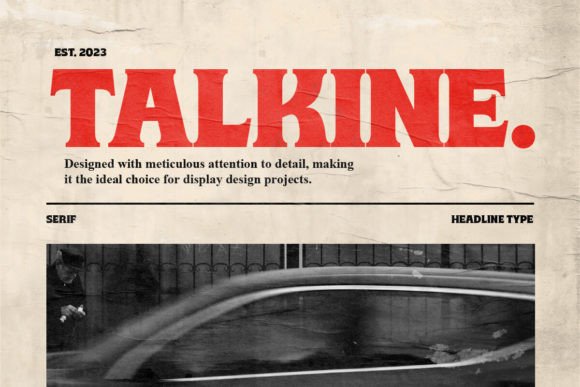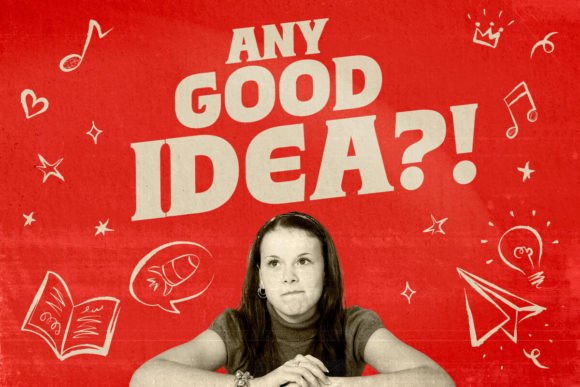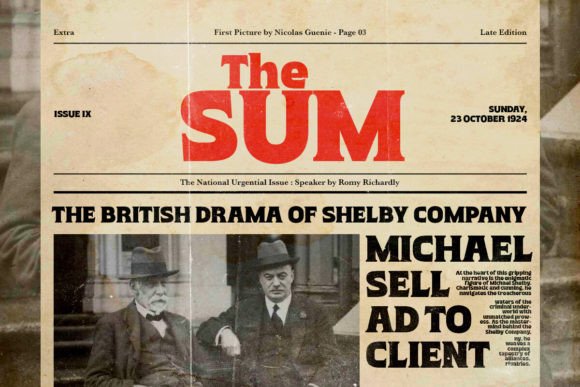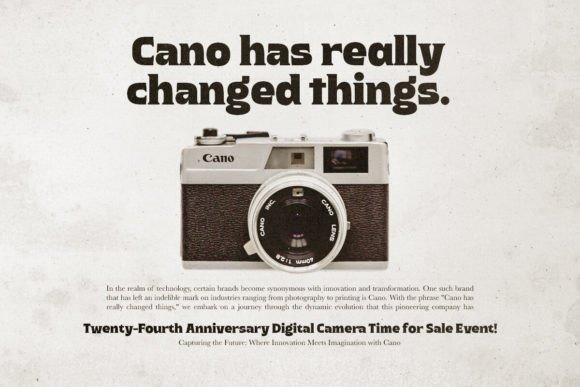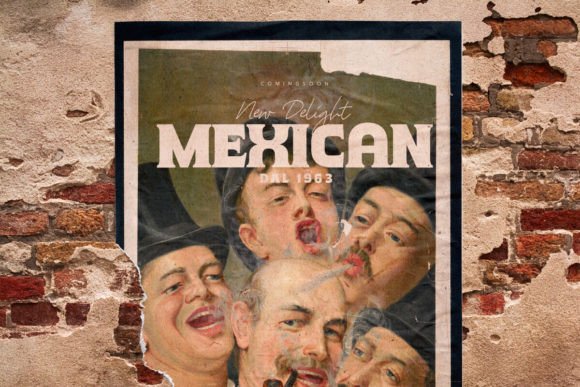
About Talkine Font
Talkine is a bold slab serif font with alternates. You can use this font for a variety of purposes especially to make some statement headline and strong looks. This font is also suitable for any vintage and rough project. Talkine also supports multi language!